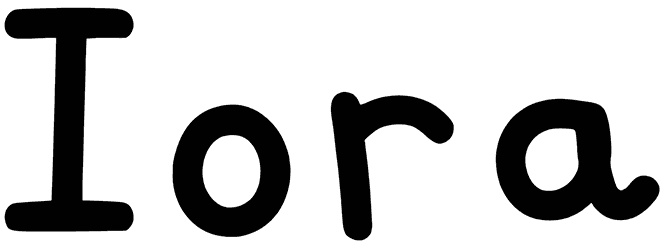
Ningst Lovely Teacher Font
A fancy comic font with an interesting appearance and a lighthearted spirit, Ningst Lovely Teacher is a joy to use. This sans-serif font is great for whimsical projects like movie titles, t-shirt designs, animations, video games, and more.